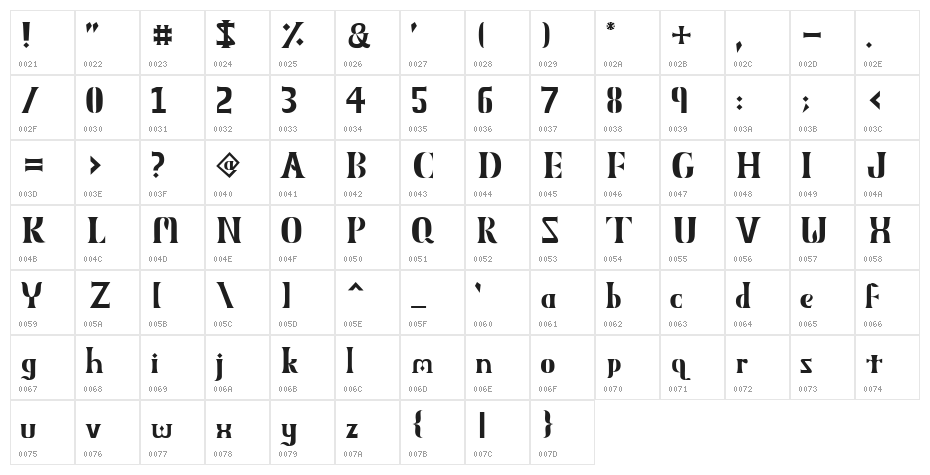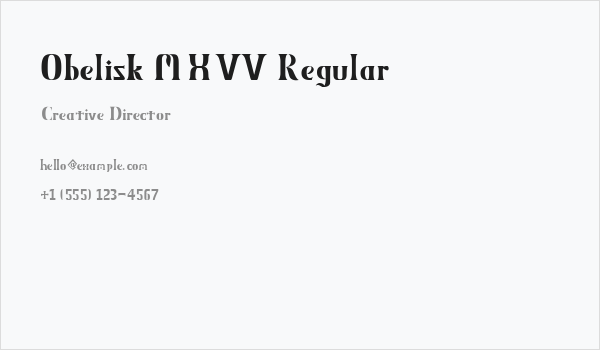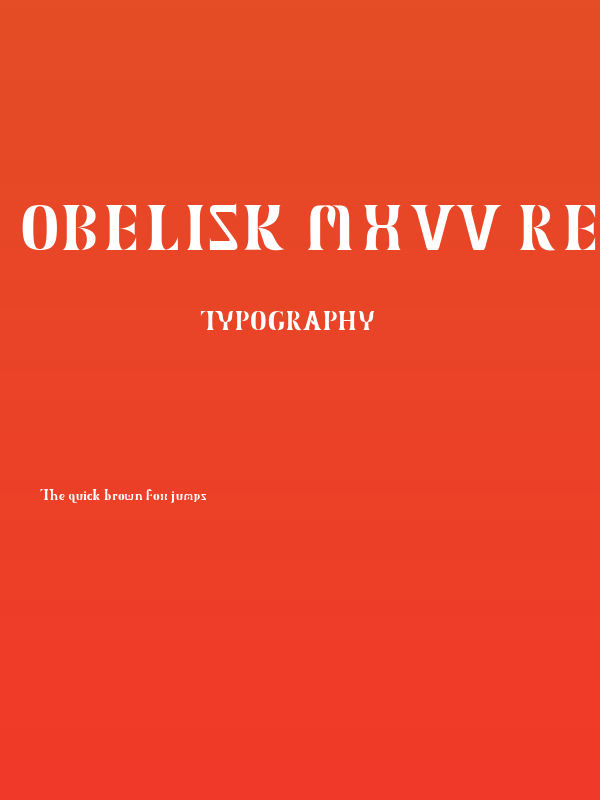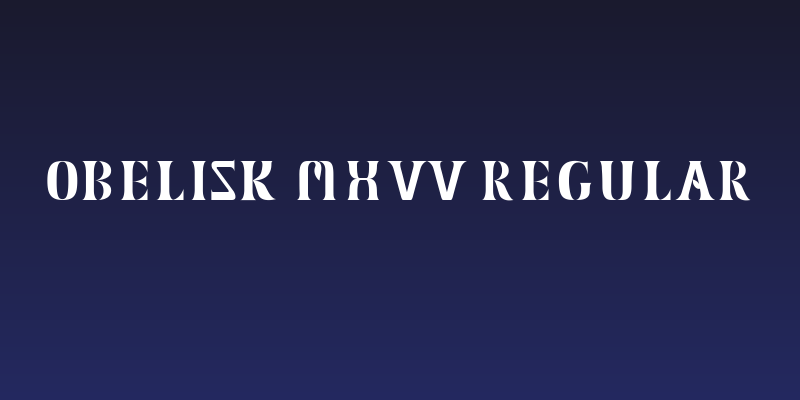
Obelisk MXVV Regular Font
Obelisk MXVV Regular Description
This font features a bold and striking design with a modern twist. The characters are crafted with sharp, angular edges and a unique geometric flair that gives them a distinctive appearance. The uppercase letters are particularly eye-catching, with a strong presence that commands attention. The lowercase letters maintain the same boldness, ensuring consistency throughout the typeface. Numbers are equally robust, making them ideal for impactful displays. Special characters are designed with the same attention to detail, providing a cohesive look across all glyphs. The overall style is both contemporary and versatile, suitable for a variety of design projects.
| Proposed Projects | Ideal for branding, posters, headlines, and any project requiring a strong visual impact. |